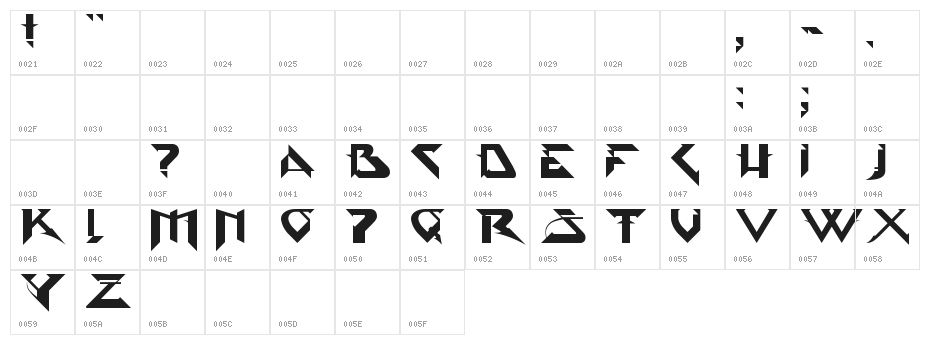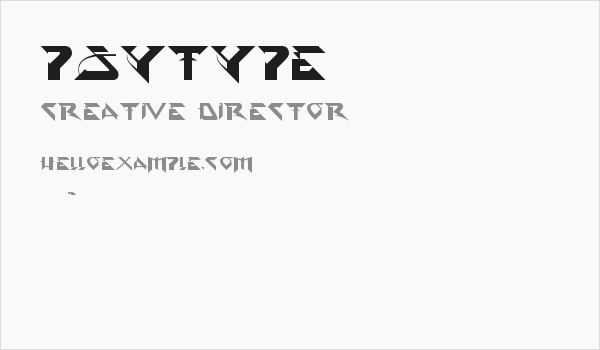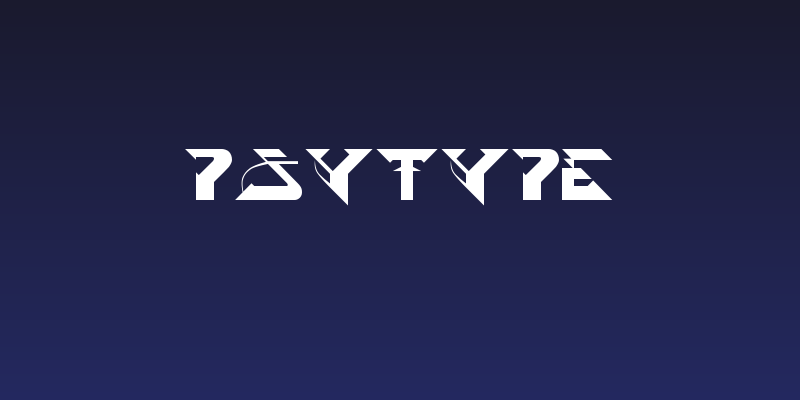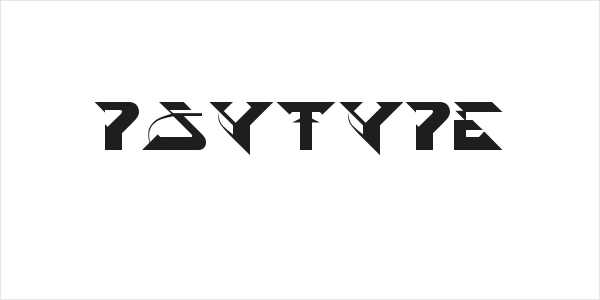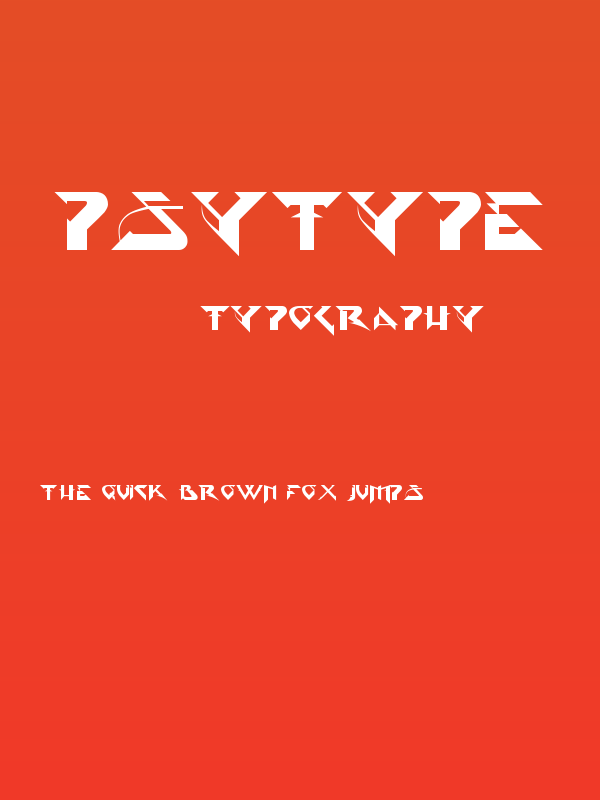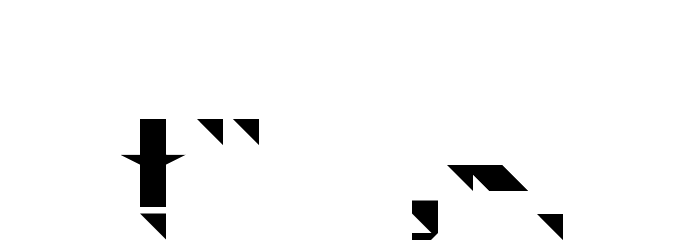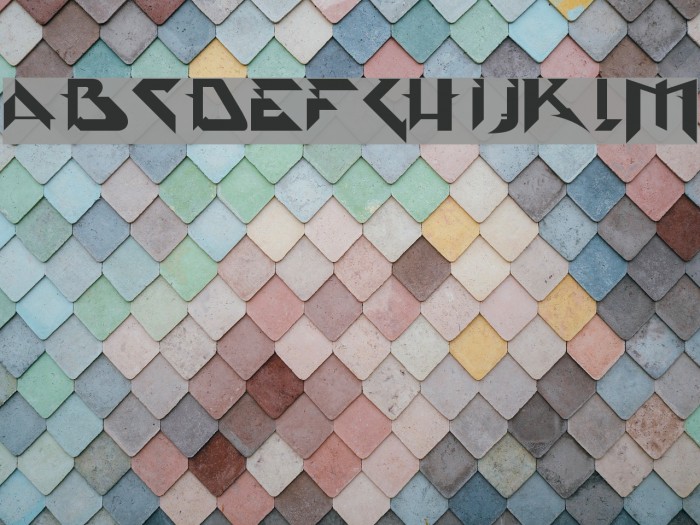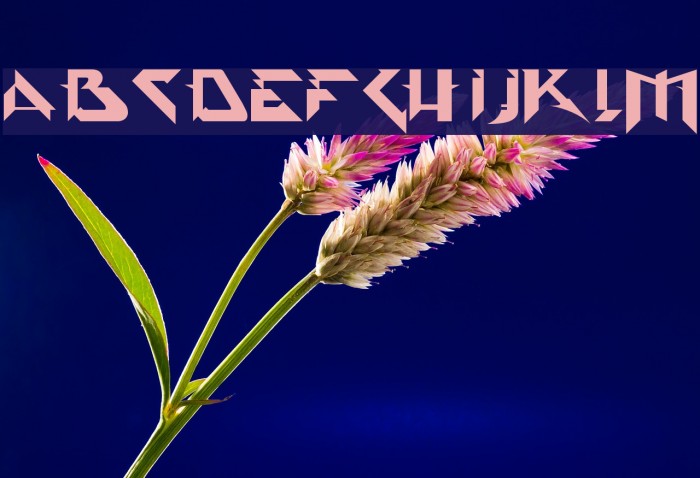
PsyType Font
This font features a bold and angular design with sharp, geometric edges that create a futuristic and edgy appearance. The characters are constructed with a series of intersecting lines and points, giving them a fragmented and dynamic look. The uppercase letters maintain a consistent height and width, while the lowercase letters follow a similar style, ensuring uniformity across the typeface. The numbers and special characters are designed to match the overall aesthetic, making them suitable for a cohesive design. The font's unique style makes it stand out, offering a modern and avant-garde feel.
| Proposed Projects | Ideal for sci-fi themed projects, video game titles, posters, and branding that requires a modern and distinctive look. |